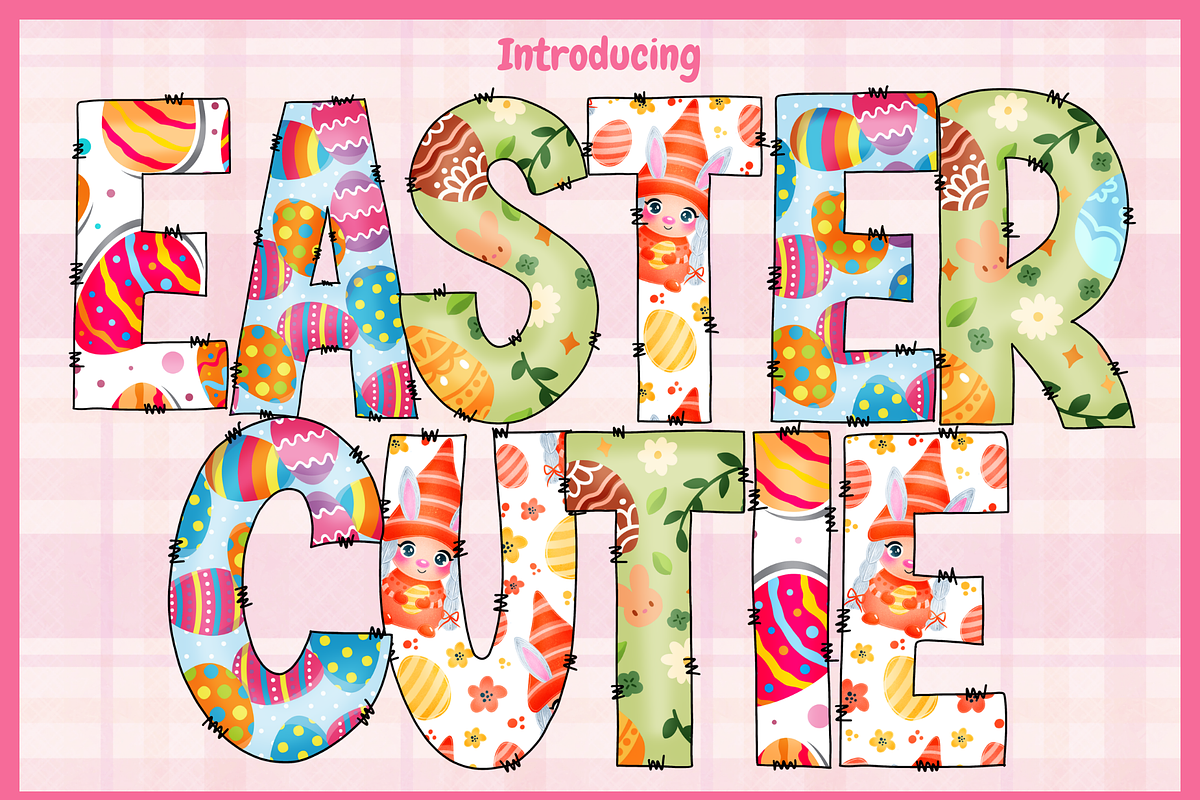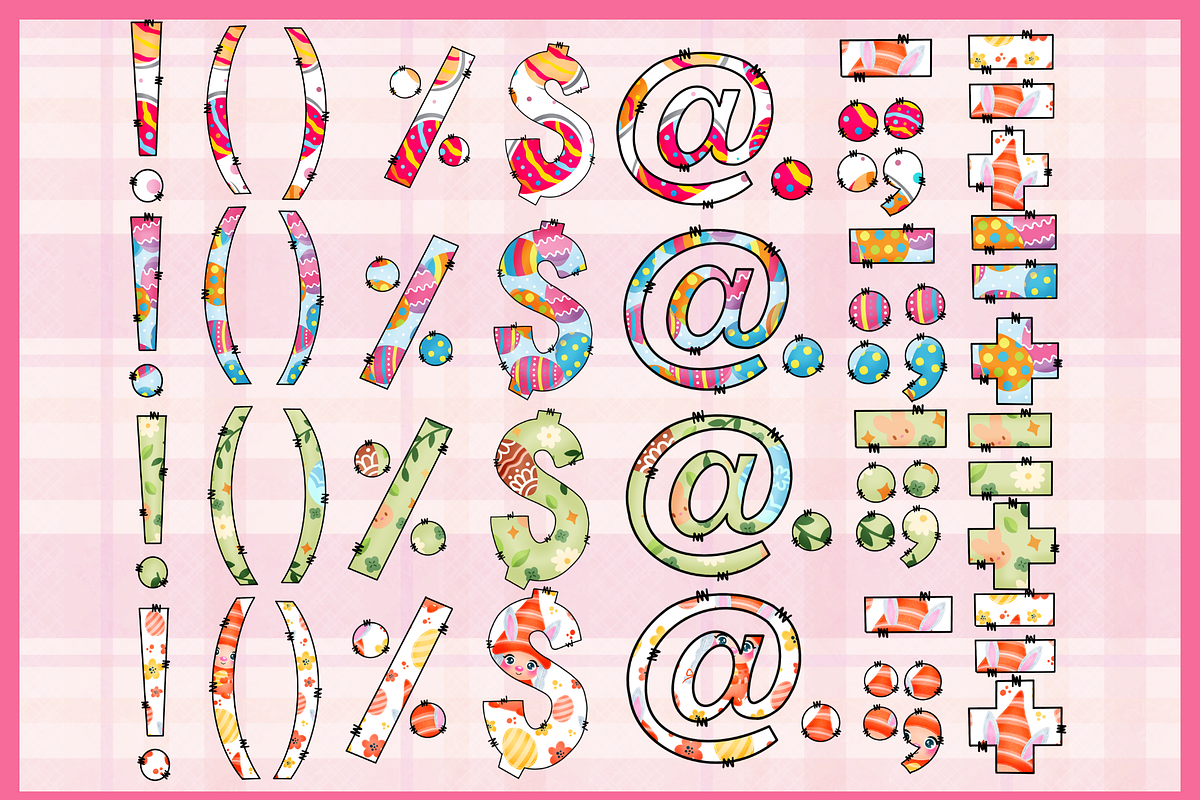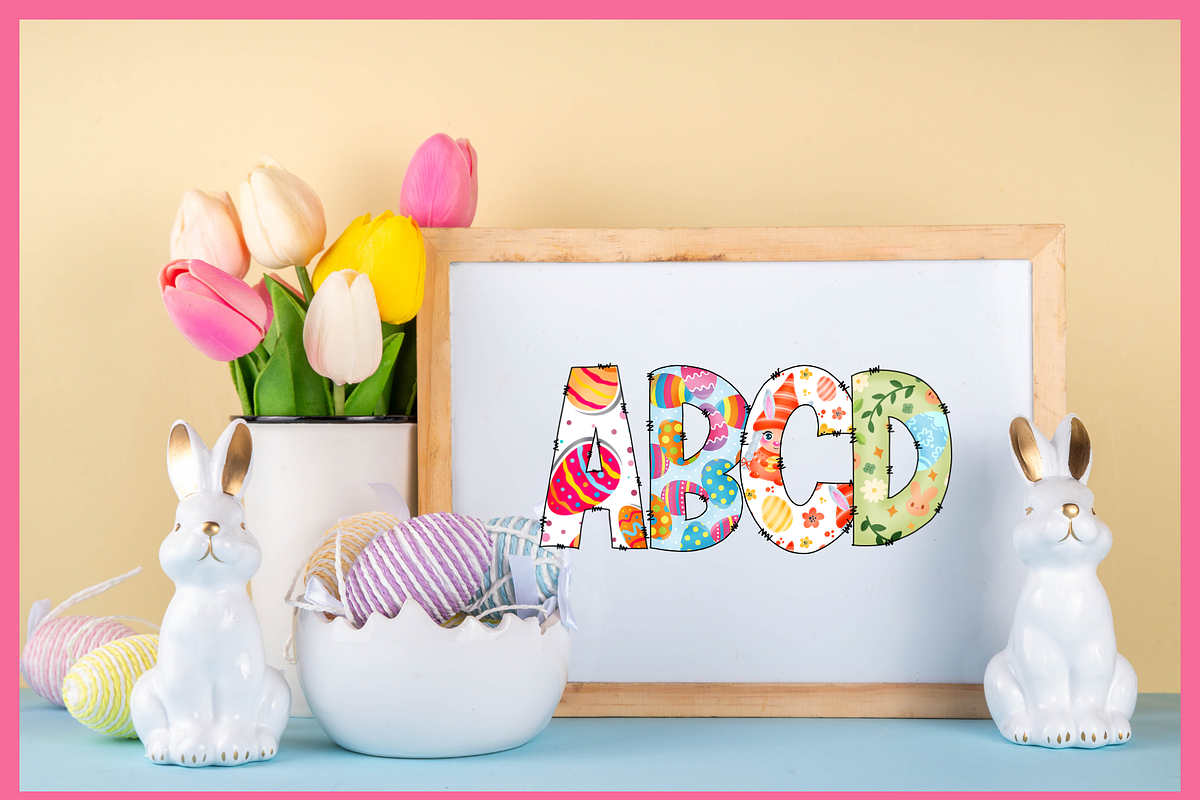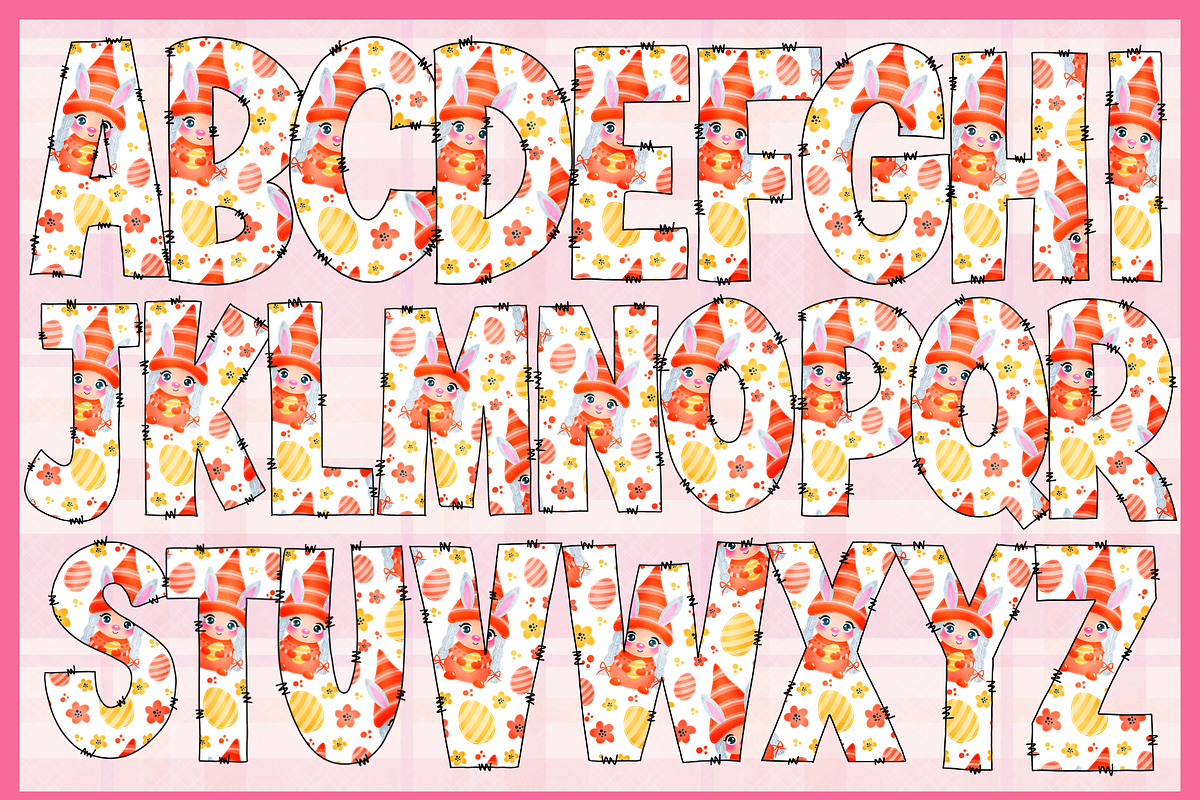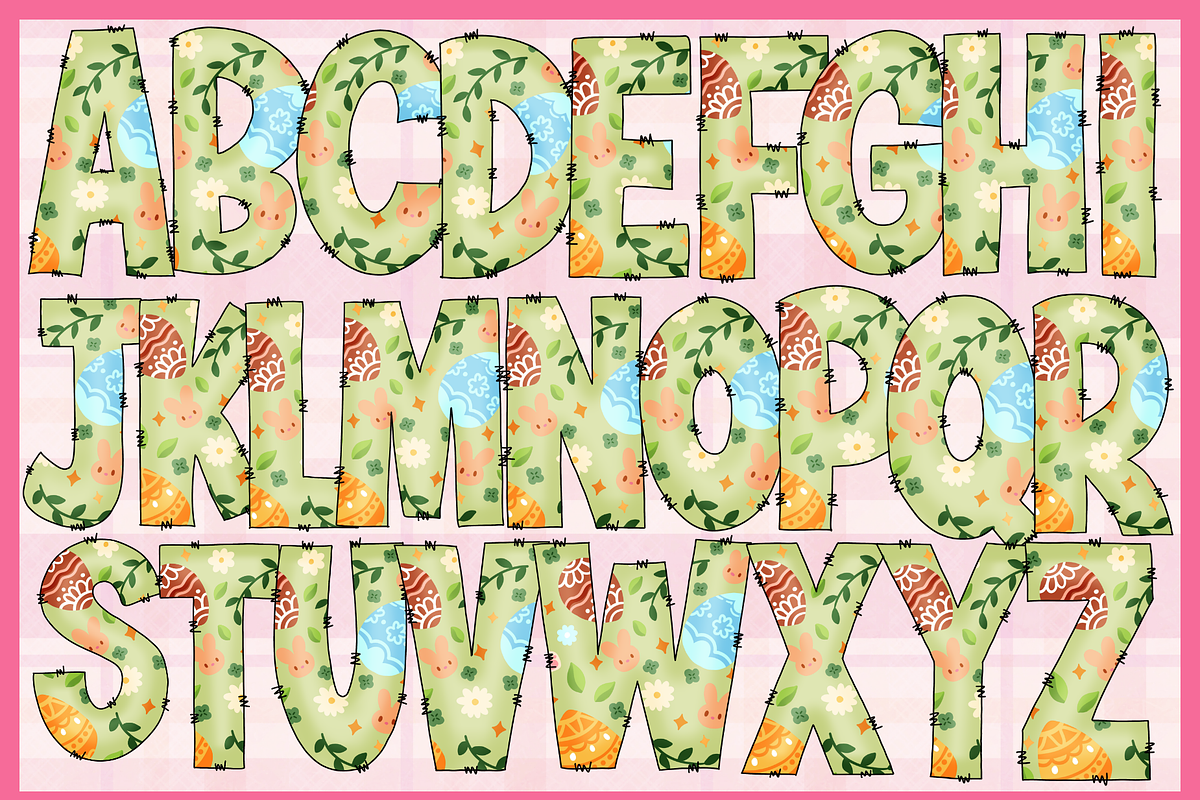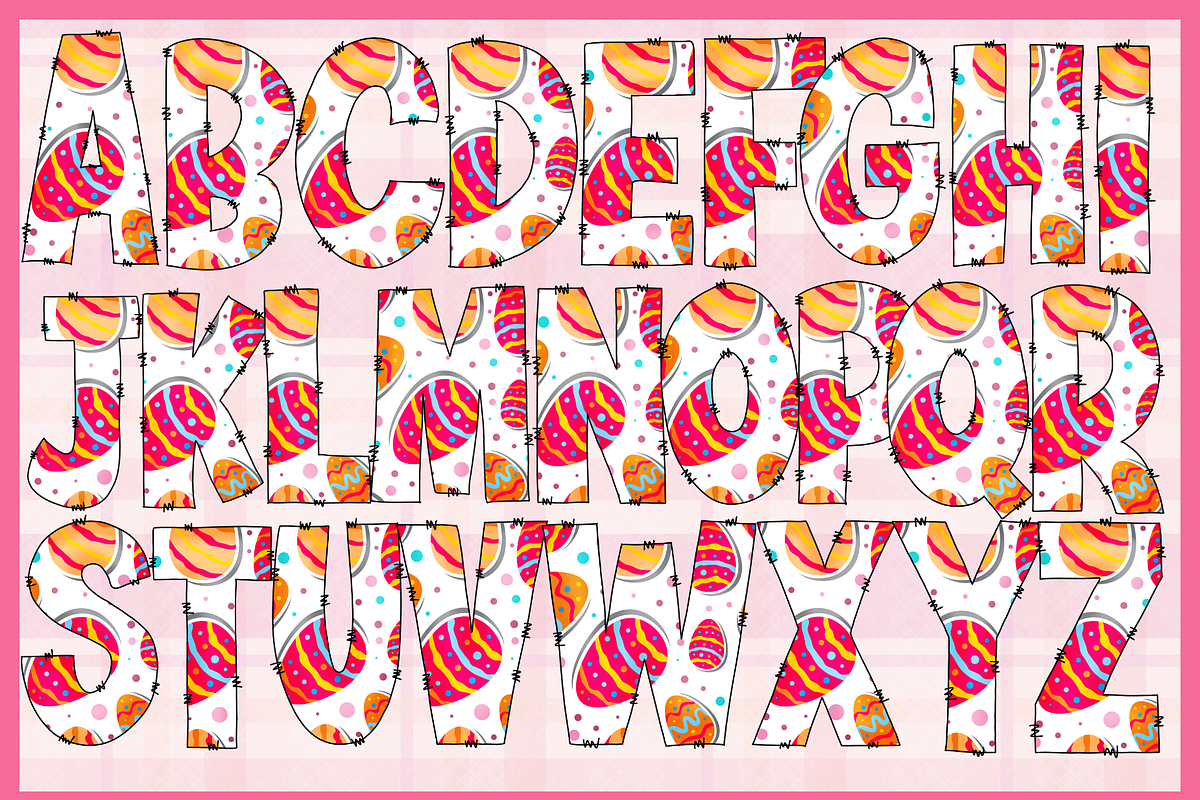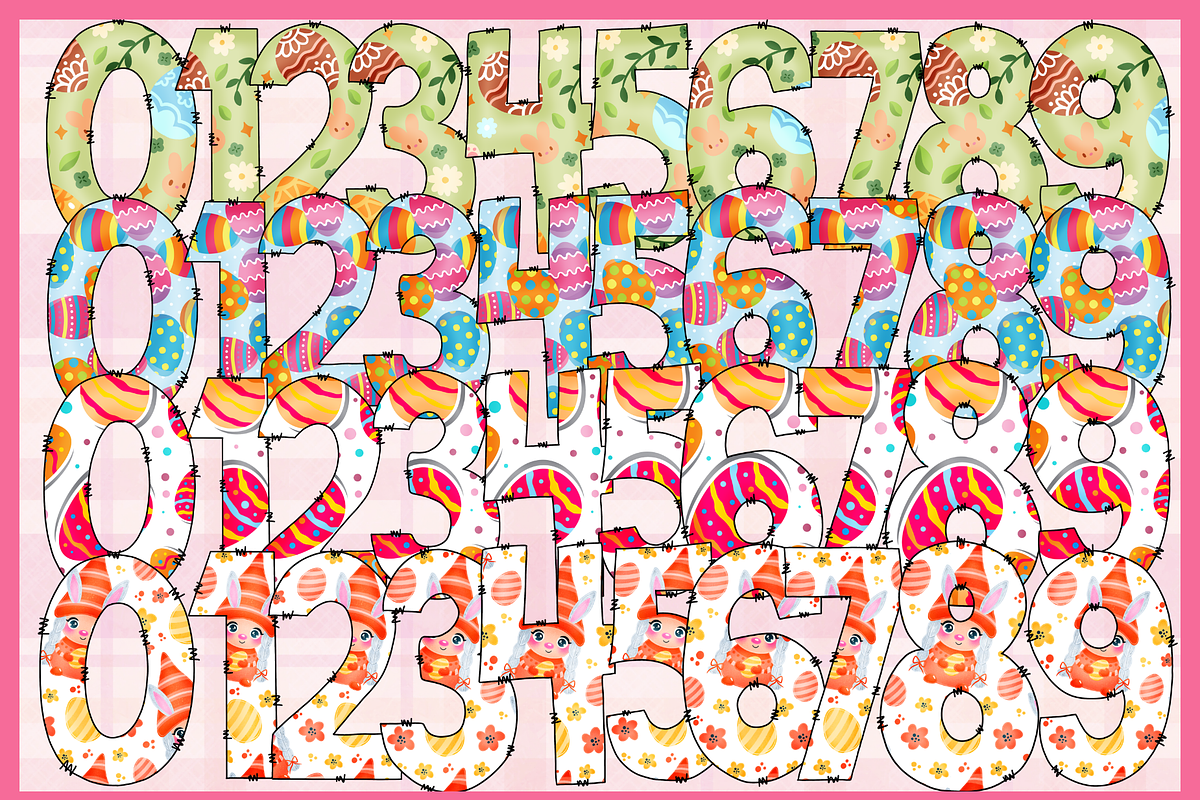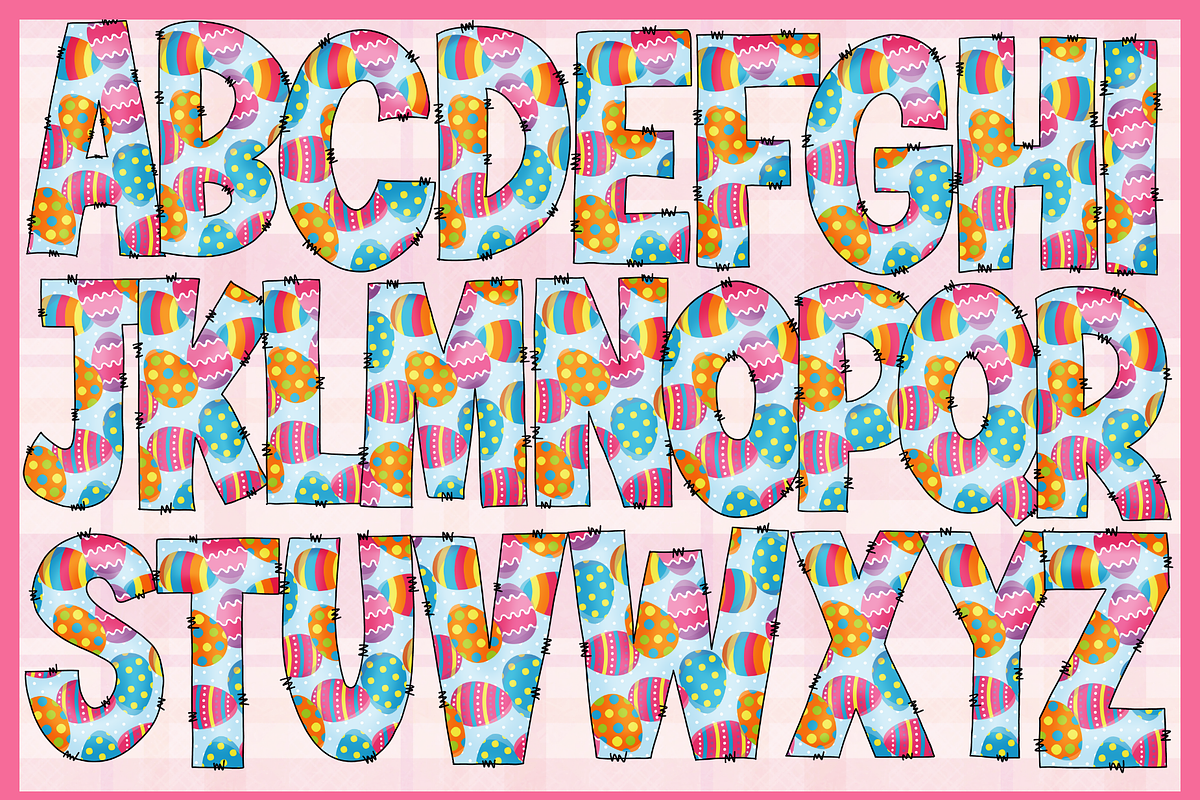
Easter Cutie-PNG fonts
Cute Easter Patchwork Alphabet | Easter Bunny & Egg Letters PNG SVG OTF TTF | Kids Easter Font
Bring a playful Easter vibe to your creative projects with this adorable Easter Patchwork Alphabet! This colorful alphabet features fun Easter eggs, cute bunny characters, spring flowers, and festive patterns designed inside bold patchwork-style letters.